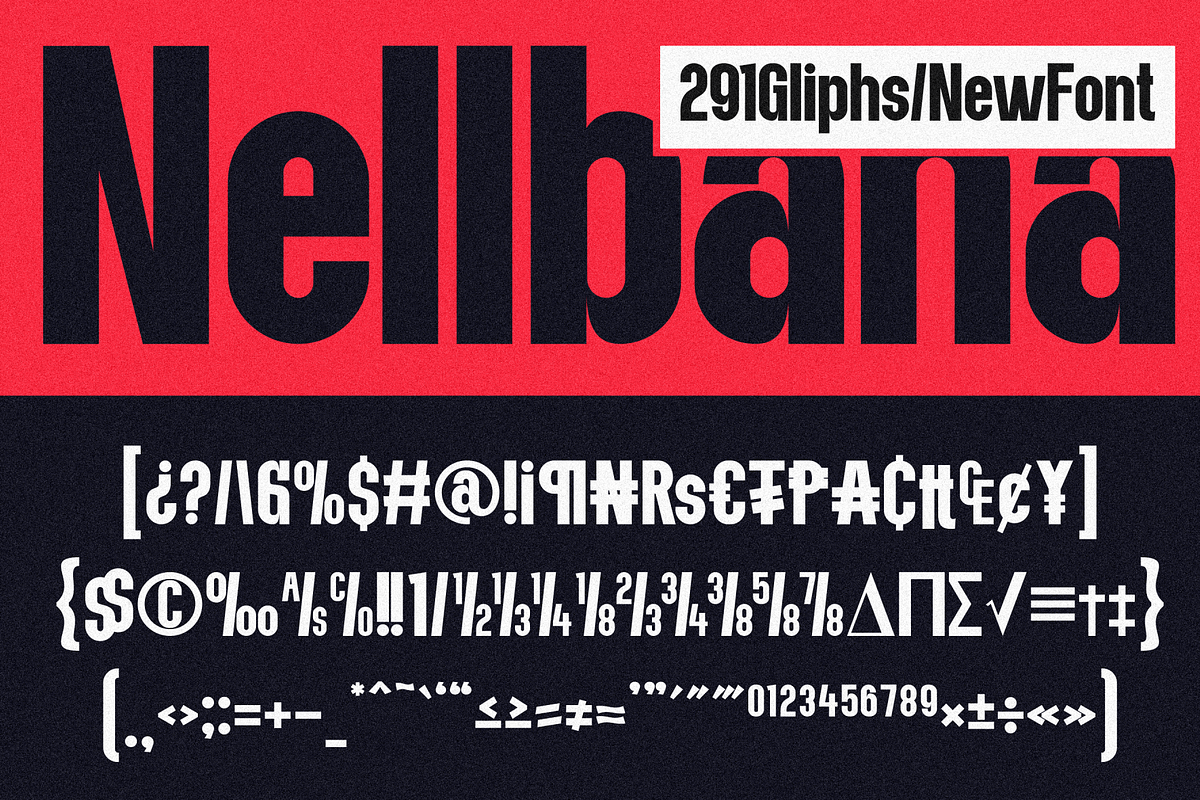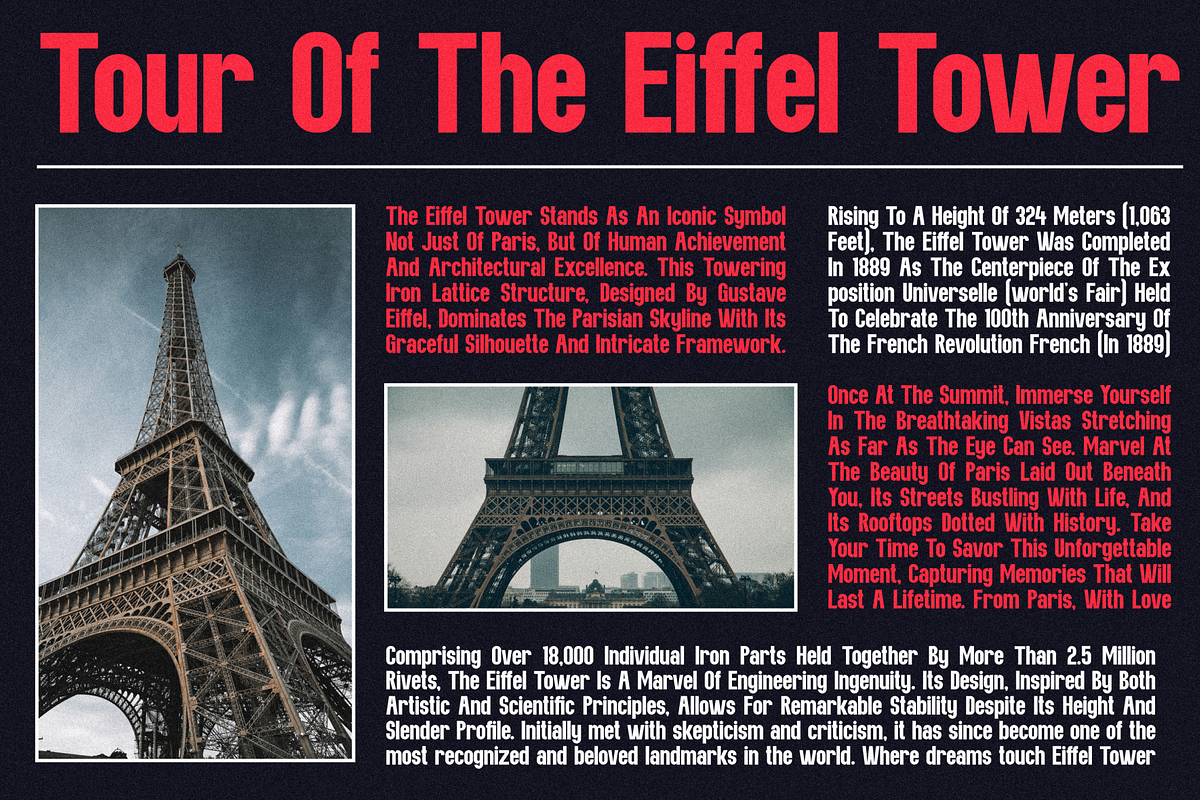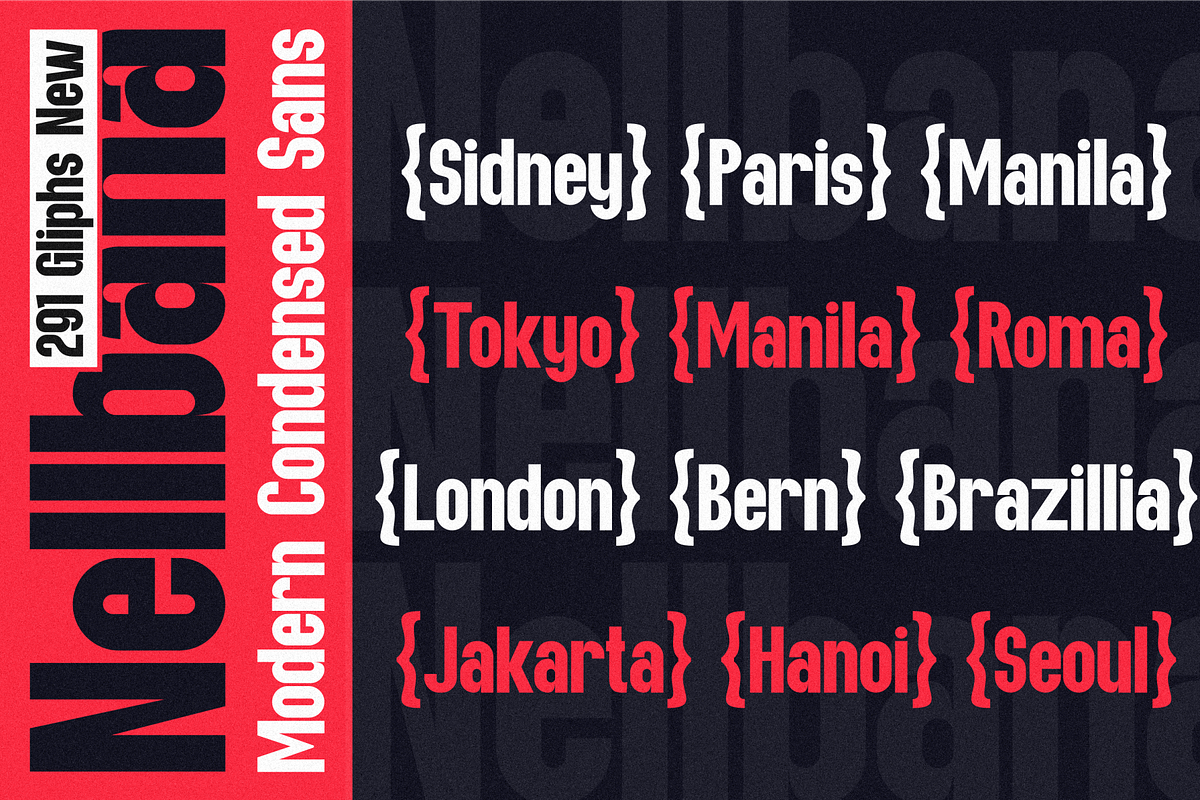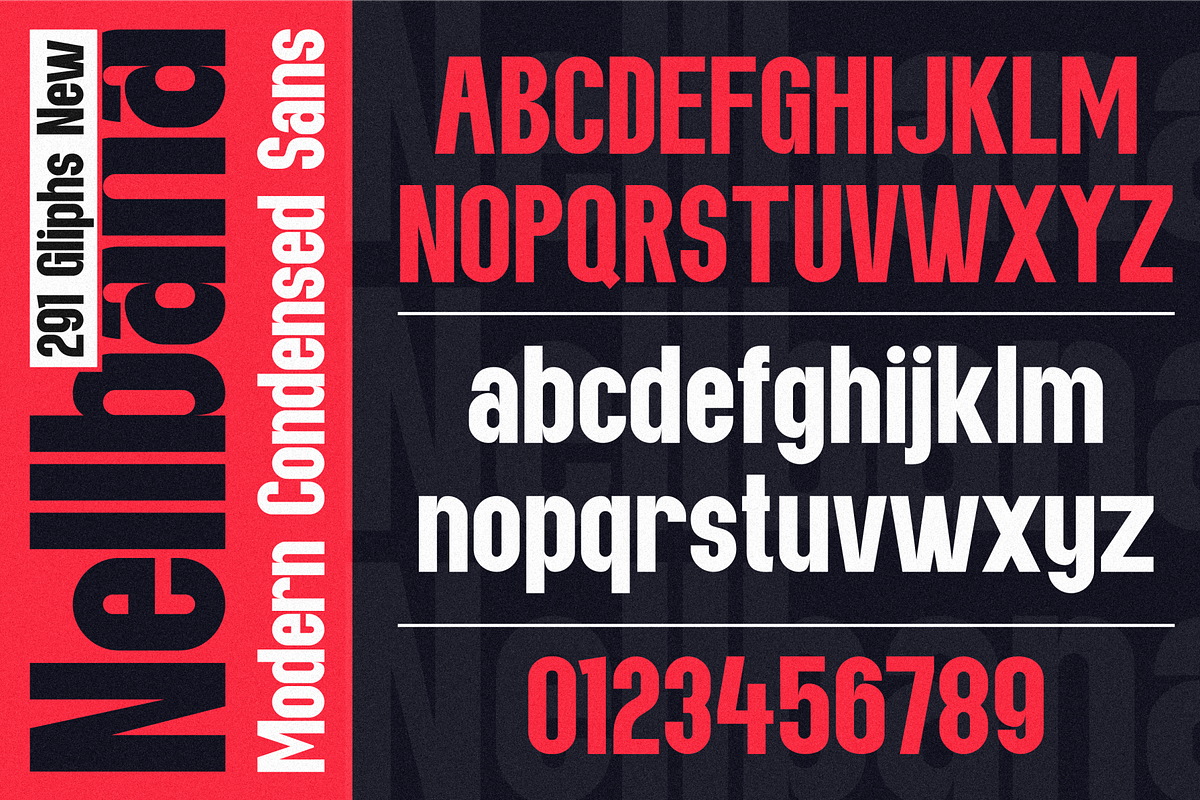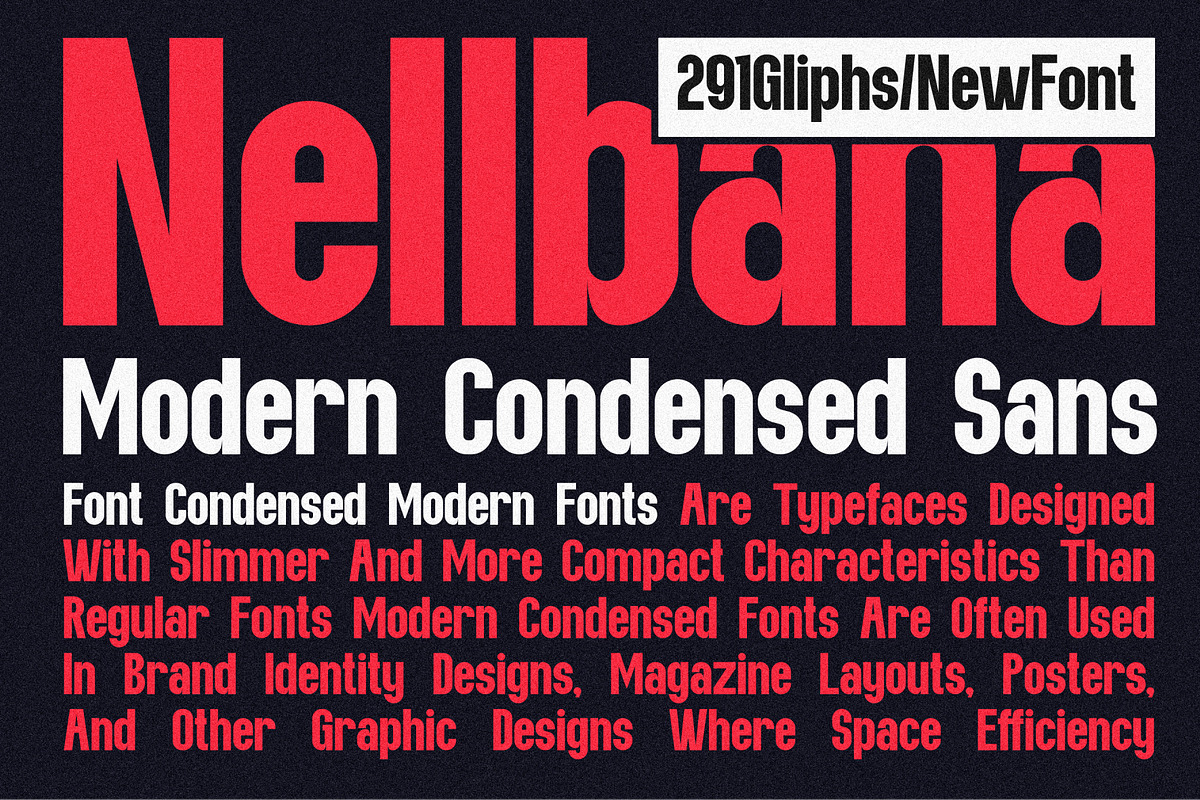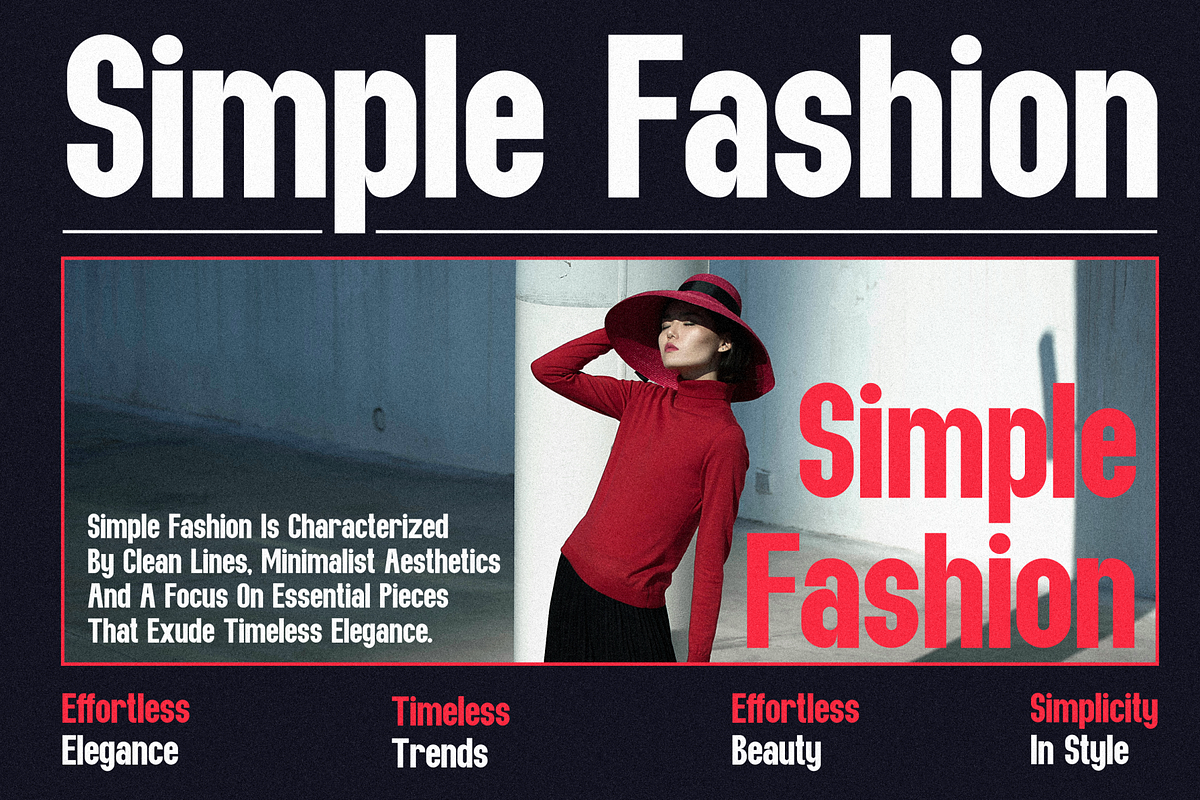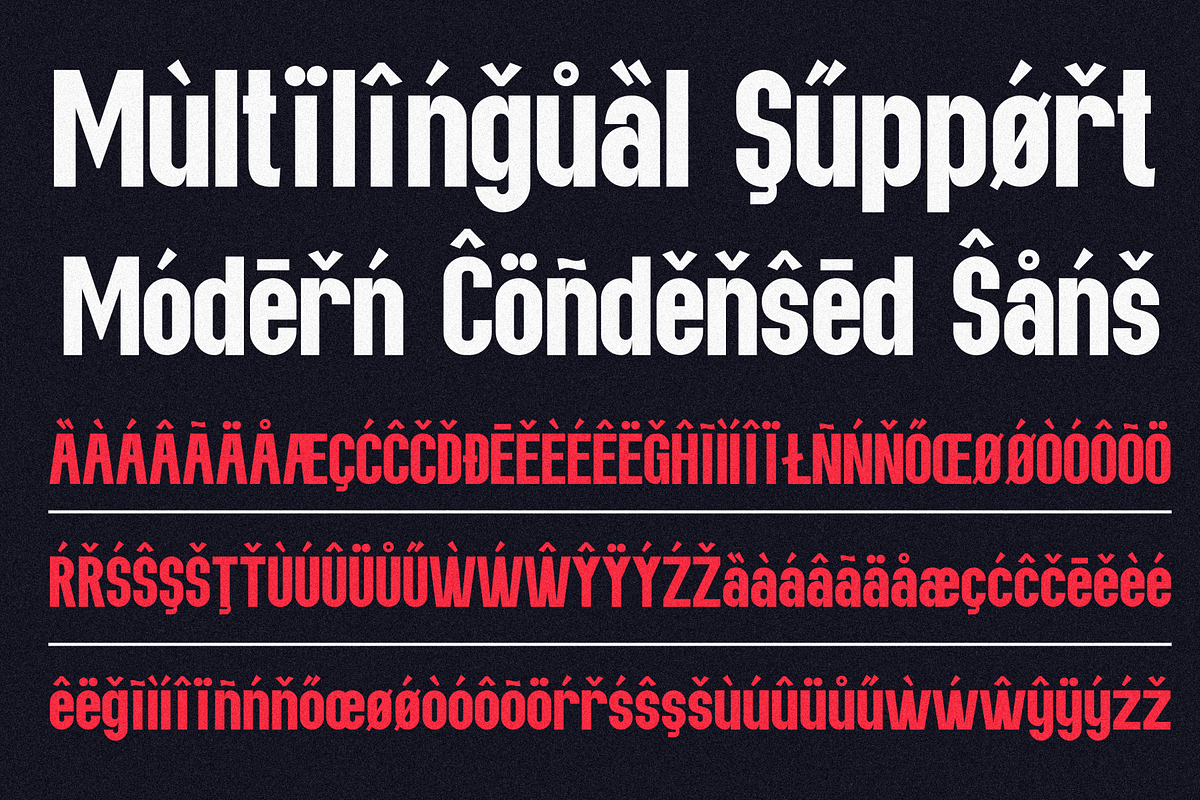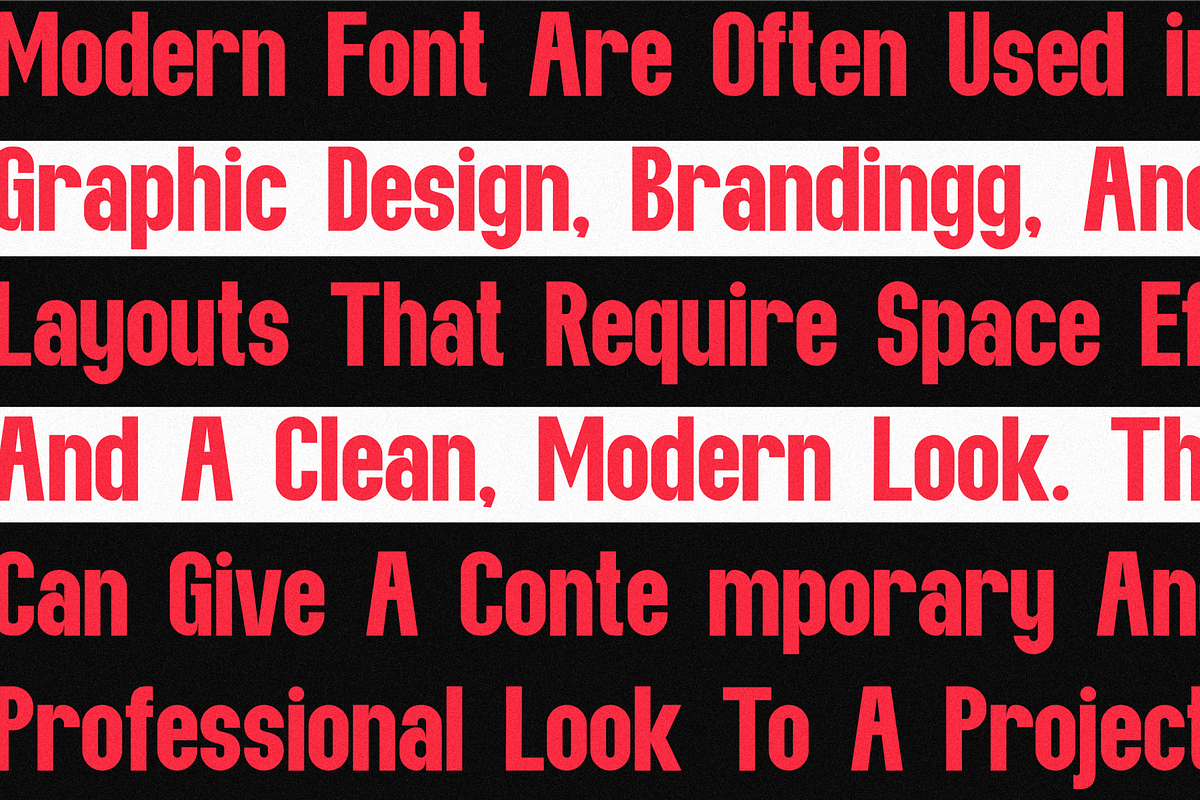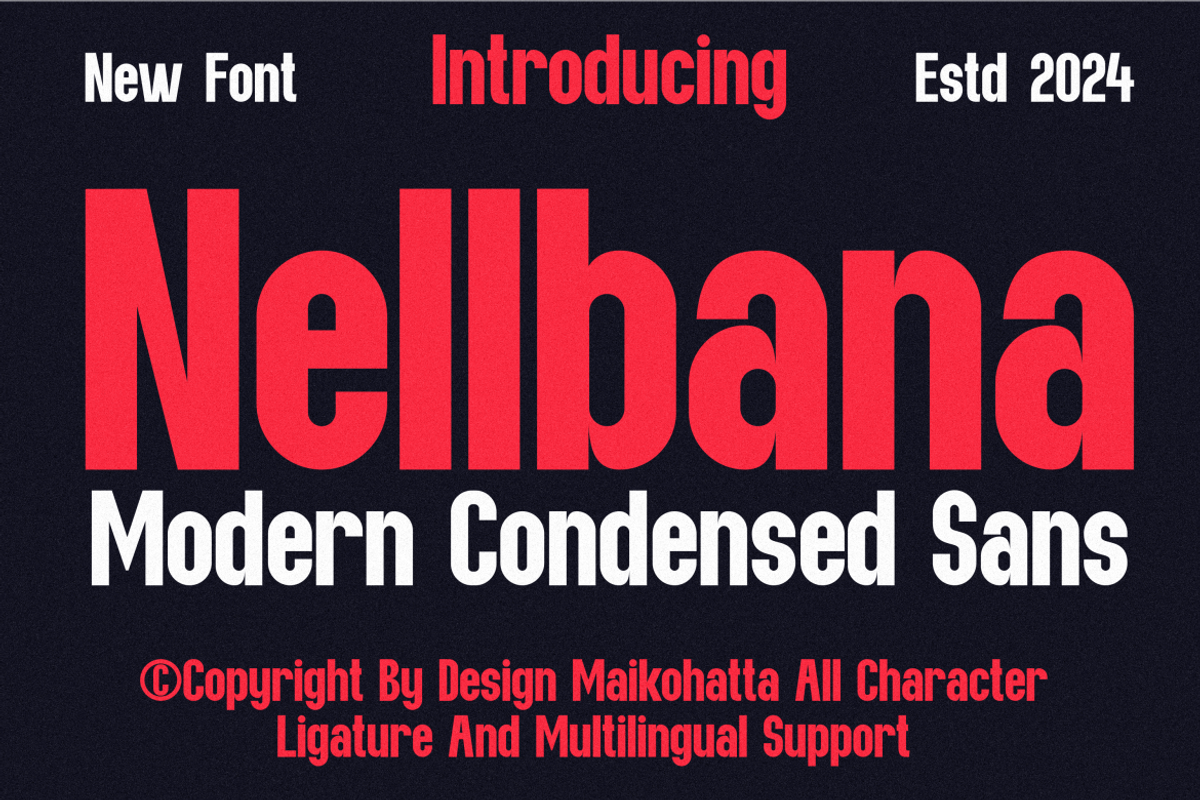
Nellbana - Modern Condensed Sans
Introducing our new product Nellbana - Modern Condensed Sans
This font is a type of font that is characterized by narrower or slimmer letterforms compared to regular or wide fonts. Condensed fonts are often used in various graphic designs, print materials, and other media because they have distinct advantages and unique characteristics